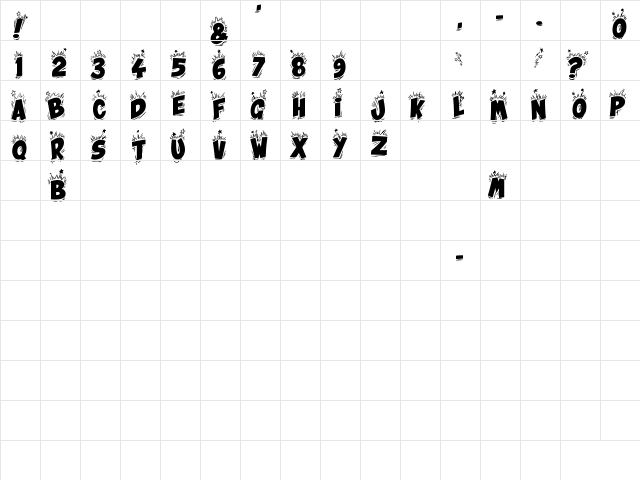
Bing Bam Boum Regular
| Designer | IMAGEX |
Design Context for Bing Bam Boum Typeface
Bing Bam Boum is a composed and adaptable typeface that performs quietly and consistently across a wide range of design contexts.